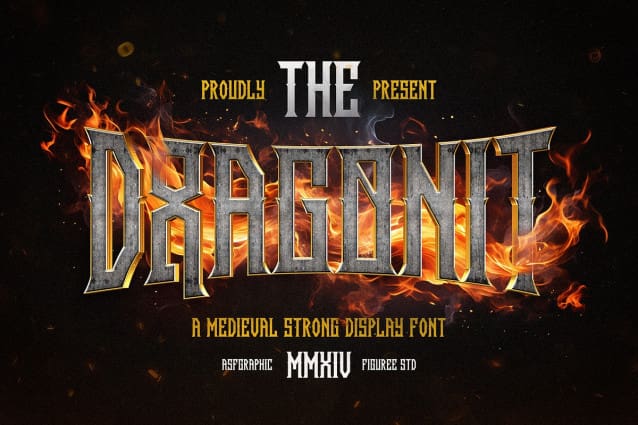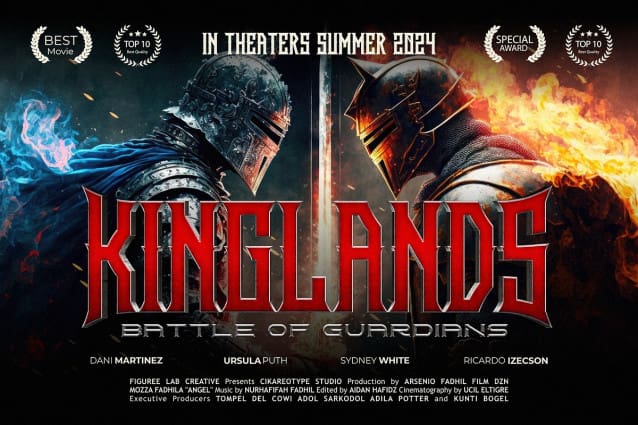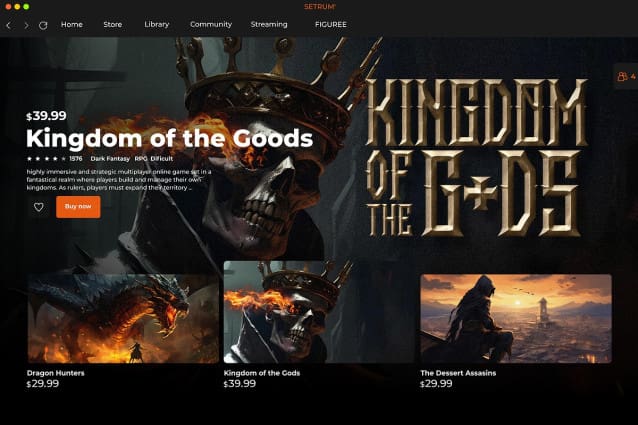
Dragonit Display Font
Dragonit Display Font, the bold display font that exudes strength, valor, and timeless adventure. Crafted with meticulous detail and inspired by the grandeur of ancient legends, Dragonit Display is more than just a font – it’s a gateway to a world of knights, dragons, and mythical quests.
🐉 Majestic Presence: Each letter in Dragonit commands attention with its robust and regal design, reminiscent of the towering castles and mighty fortresses of medieval lore. Let your words roar with the power of dragons and the bravery of knights.
⚔️ Medieval Elegance: Transport your designs to a bygone era of chivalry and honor with Dragonit’s elegant yet commanding aesthetic. Whether adorning posters, book covers, or branding materials, this font adds a touch of medieval grandeur to any project.
🏰 Legendary Tales: From ancient manuscripts to modern-day fantasy novels, Dragonit lends an air of authenticity to your storytelling. Its strong and distinctive characters breathe life into tales of valor, magic, and heroism, captivating readers with every word.
🛡️ Versatile Applications: Whether you’re creating signage for a medieval-themed event, designing merchandise for a fantasy fanbase, or crafting digital artwork for gaming graphics, Dragonit rises to the occasion with its versatility and timeless appeal.
📜 Timeless Craftsmanship: Like the armor of a gallant knight, Dragonit Display is forged with precision and care, ensuring each letter stands as a testament to the craftsmanship of a bygone era. Its intricate details and sturdy demeanor make it a font worthy of epic quests and noble endeavors.
🐲 Unleash Your Creativity: With Dragonit Display by your side, unleash the full force of your imagination and embark on a creative journey filled with medieval splendor and mythical wonder. Let your designs soar on the wings of dragons and carve your own legend with this majestic font.
Join the ranks of knights and heroes, and wield the power of Dragonit to conquer new creative horizons. Let your imagination take flight and transport your audience to a world of medieval marvels with this strong and captivating display font.